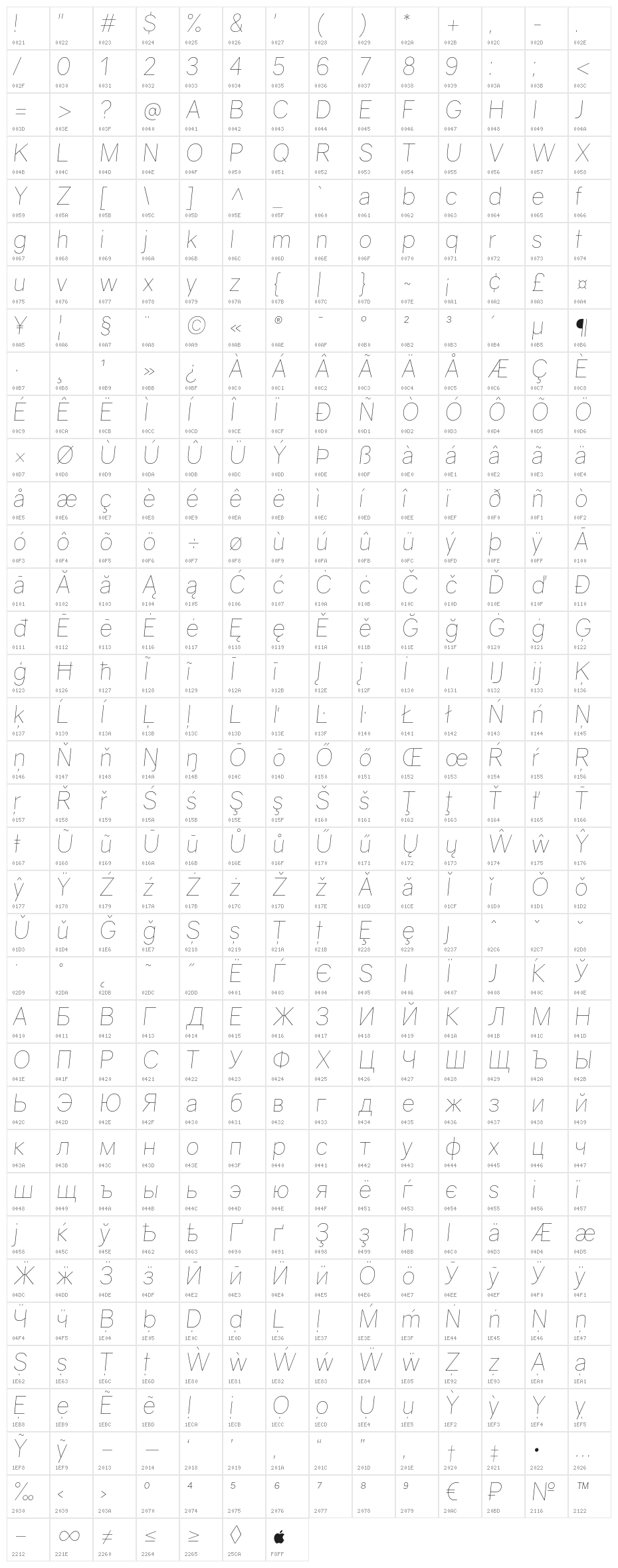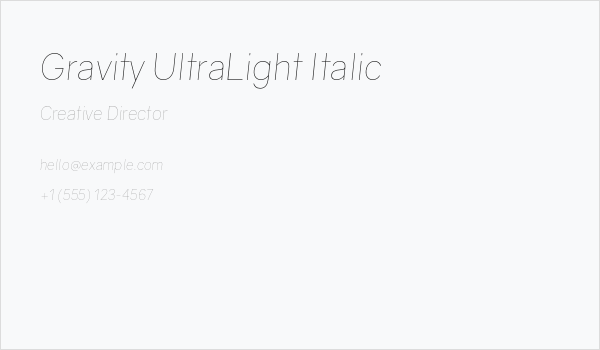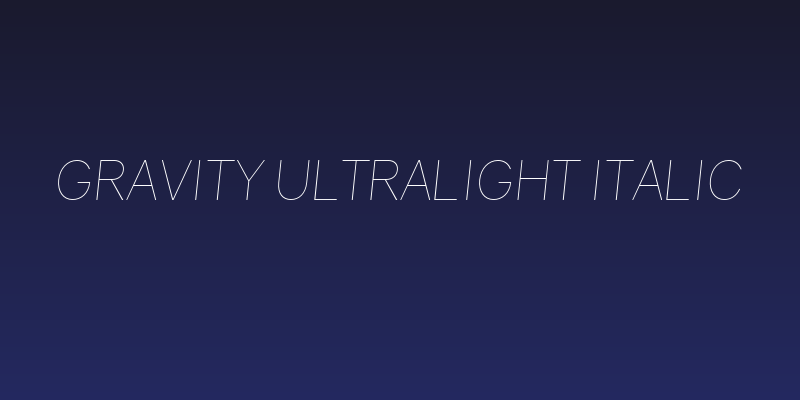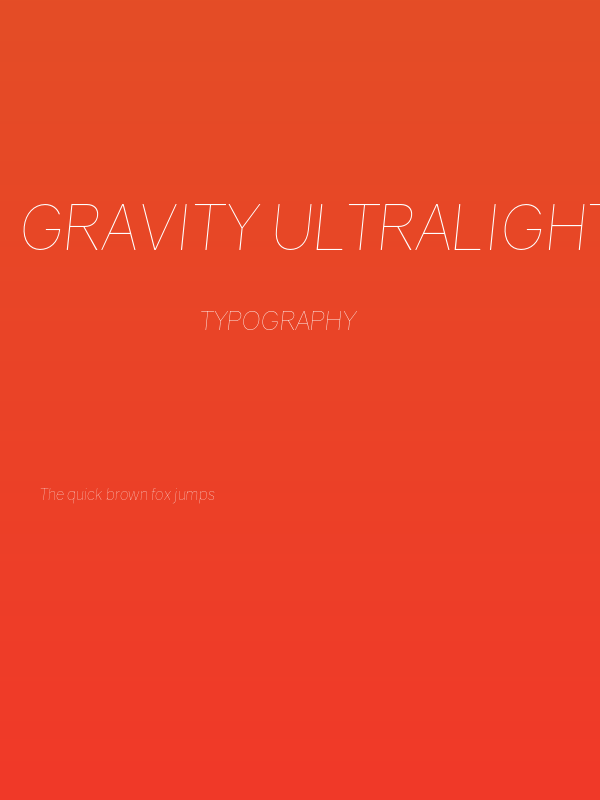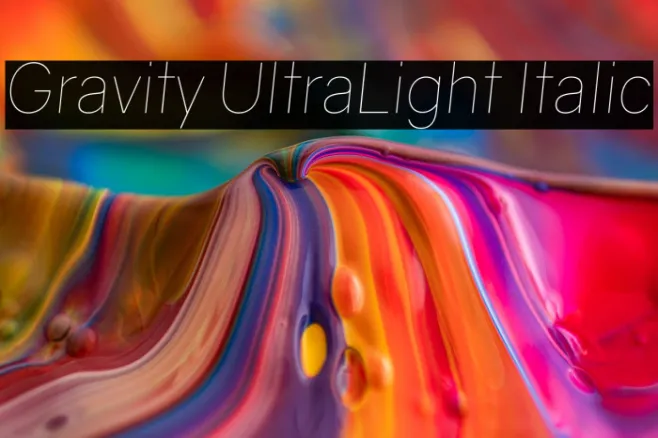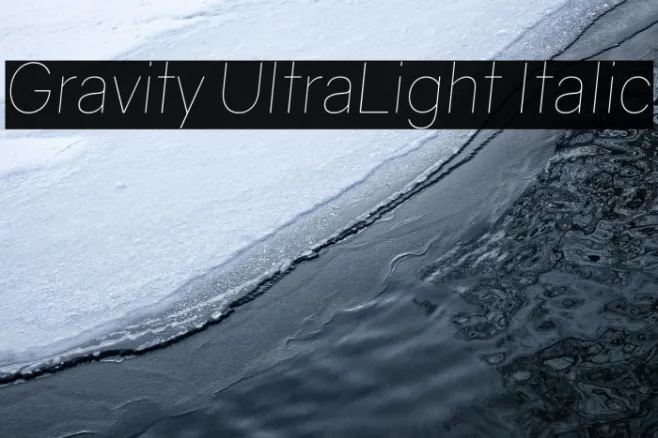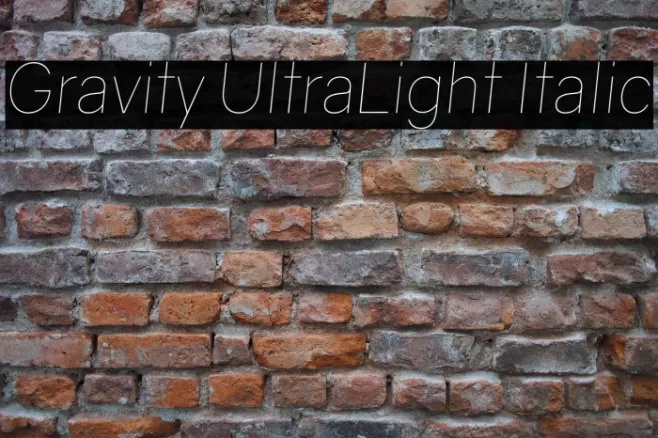
Gravity UltraLight Italic Font
Gravity UltraLight Italic Description
This font features an ultra-lightweight design with a sleek, modern aesthetic. Its italicized form adds a sense of motion and elegance, making it suitable for contemporary projects. The characters are clean and minimalistic, with a consistent stroke width that enhances readability while maintaining a stylish appearance. The uppercase and lowercase letters are well-proportioned, and the numerals are clear and distinct. Special characters are included, providing versatility for various design needs. This font is ideal for projects that require a sophisticated and airy feel.
| Proposed Projects | Ideal for fashion magazines, modern branding, minimalist posters, and elegant invitations. |